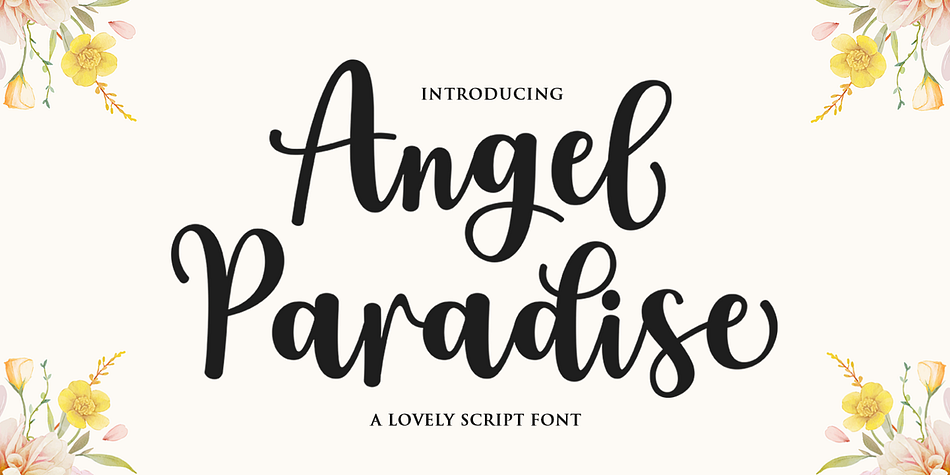
Angel Paradise
Angel Paradise is a modern calligraphy font family published by Attract Studio.
Angel Paradise Script is a modern calligraphy font. Here you will get a beautiful script font. This font is available some modern swirl that can make your work look elegant, sweet and perfect. Can be used for various purposes.such as headings, signature, logos, wedding invitation, t-shirt, letterhead, signage, lable, news, posters, badges etc.
Foundry Attract Studio
Style Modern Calligraphy